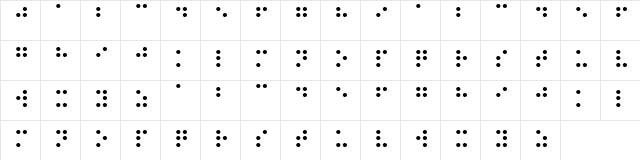
Braille Normal Free Font
Braille Normal
Braille Family
Braille Normal
Design Context for Braille
Braille is a composed and adaptable typeface that performs quietly and consistently across a wide range of design contexts.